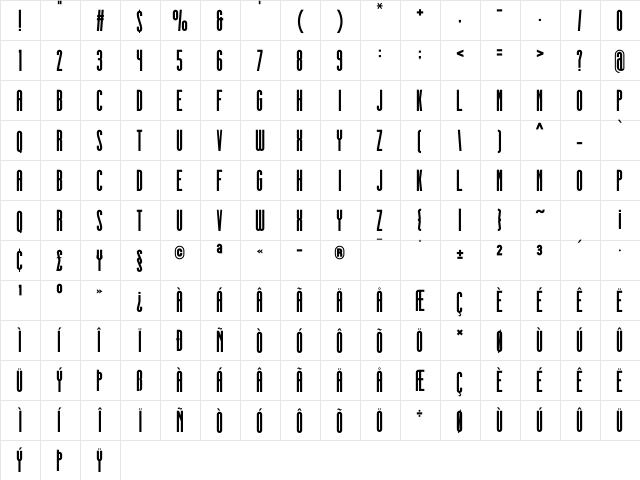
gello bold Regular Font Preview
gello bold Regular
gello bold Regular Font Details
Design Context for gello bold Typeface
gello bold is a composed and adaptable typeface that performs quietly and consistently across a wide range of design contexts. Its bold stroke weight gives it real presence on the page.